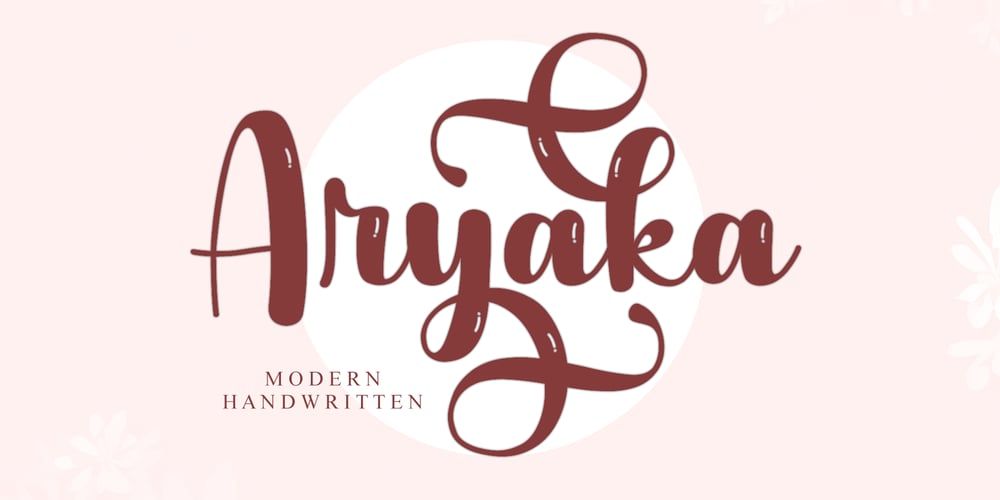
Aryaka
Aryaka font
Aryaka Font Family was designed by Ahmad Afandi and published by Letterafandi Studio. Aryaka contains 2 styles and family package options. Aryaka is a modern handwritten font. It can be used for various purposes such as logos, wedding invitations, headings, t-shirts, letterhead, signage, labels, news, posters, badges and so much more.Aryaka is PUA encoded which means you can access all of the glyphs and swashes with ease!